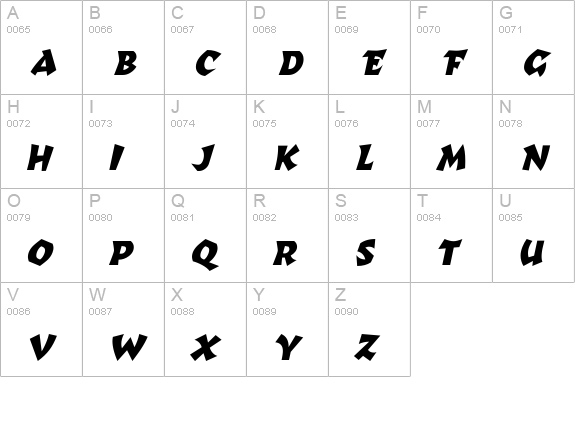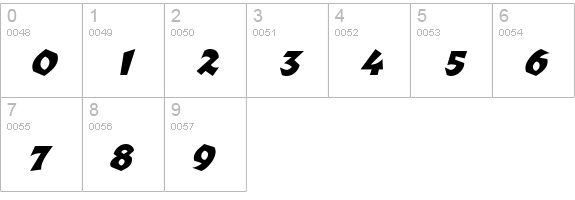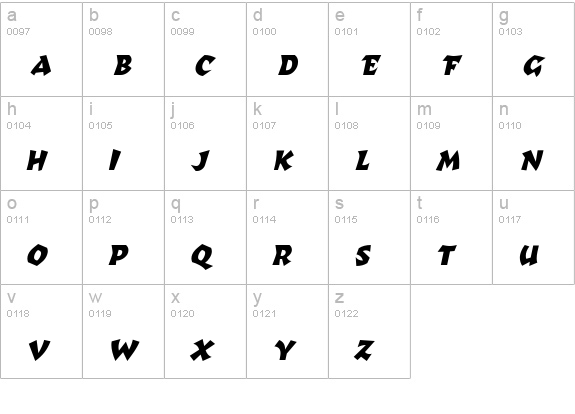
Richter Italic Font Details
Richter Italic is a distinctive, italic variant in the Richter typeface family \xE2\x80\x94 well suited to design and typography projects.
Richter Italic is a stunning and sophisticated font that exudes elegance and style. This font is the perfect choice for those seeking to add a touch of class to their designs, whether it be for a logo, branding, or any other creative project. With its sleek and slanted letterforms, Richter Italic captures attention effortlessly, making a bold statement while maintaining a sense of refinement. The intricate curves and sharp angles create a visually striking appeal that is sure to leave a lasting impression. One of the most appealing aspects of Richter Italic is its versatility. This font is well-suited for both headlines and body text, ensuring that your message is delivered with clarity and impact. Whether used in print or digital media, Richter Italic adapts seamlessly, enhancing the overall aesthetic of any composition. What sets Richter Italic apart is not only its exquisite design but also its availability. This font is freely available to download at FontsMarket.com, providing designers and creatives with easy access to this exceptional typeface. With just a few clicks, you can elevate your projects with the timeless beauty of Richter Italic. Don't miss out on the opportunity to enhance your designs with this remarkable font. Download Richter Italic today from FontsMarket.com and experience the freedom to create stunning visuals that captivate and inspire.